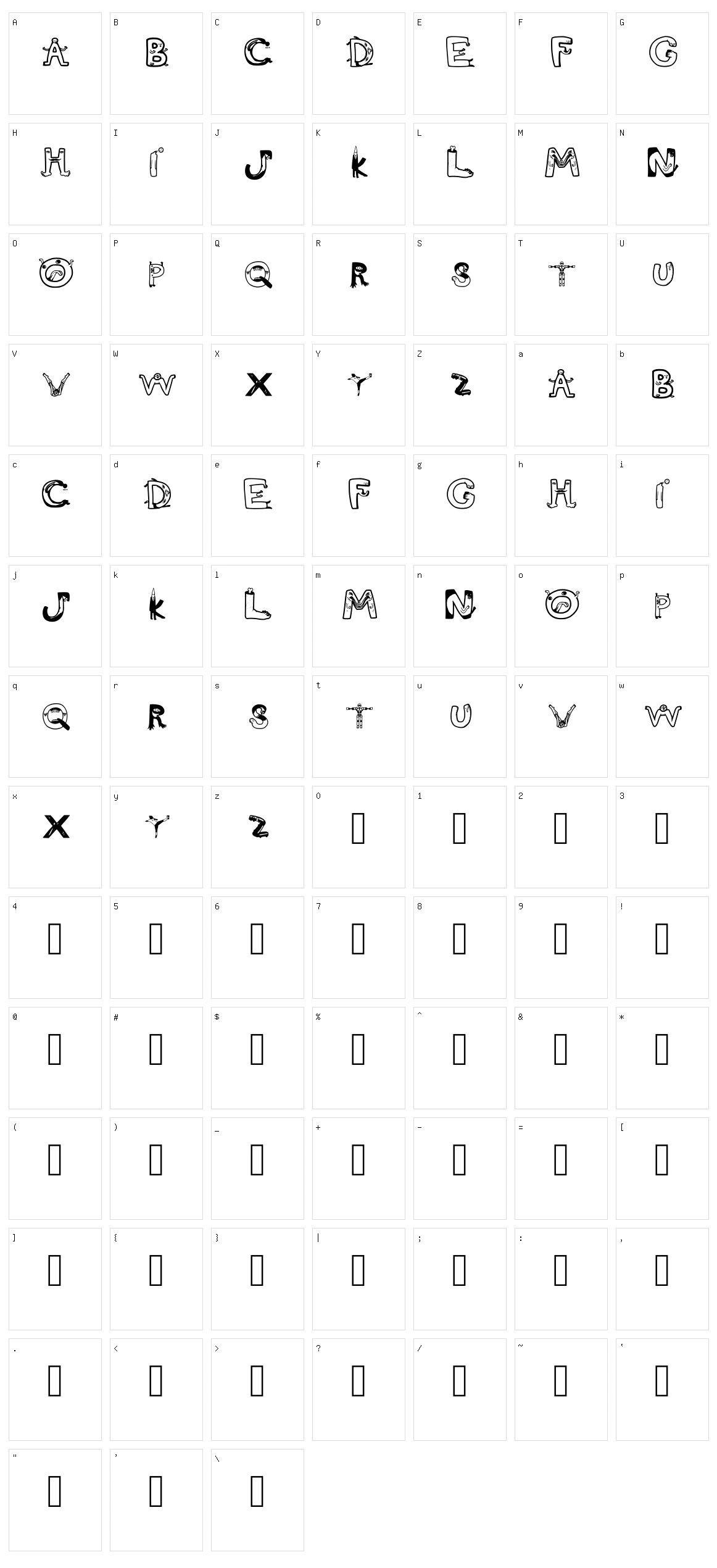
The free font Scimmy is carefully designed by Giacomo Scandurra, showcasing a thoughtful balance of creativity and usability and falls under the Decorative font style. When you download the ZIP file, it contains only 19.52 KB of font files, making it lightweight and quick to download. Please review the license details below to understand permitted usage and distribution rights. If license information is not available, we recommend using this font for personal projects only or contacting the author directly for commercial usage permissions.